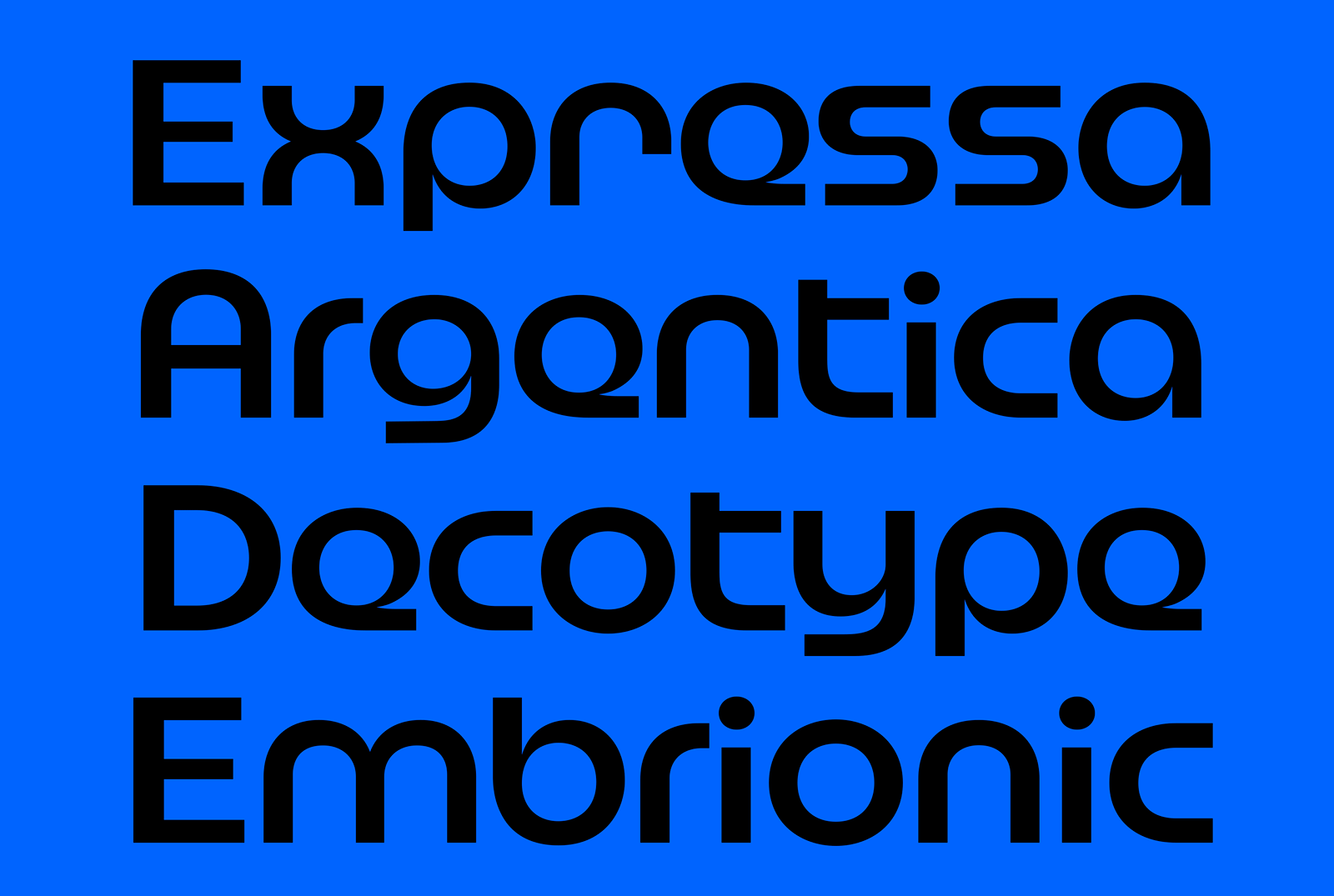
Q&A Franziska Weitgruber
We have a fabulous selection of international guests critics visiting us at TypeParis Summer23. We wanted to find out a little more about each of them, so have presented them with a series of questions which they have generously taken the time to answer. Discover Franziska Weitgruber's interview.
Biography Franziska Weitgruber is an independent Type and Graphic Designer based in South Tyrol (IT). She graduated from the Type and Media master course at the Royal Academy of Arts Den Haag (NL) in 2016. Besides her Design practice she is a lecturer in Type Design at New Design University (AT).
Her typefaces are published via futurefonts.xyz, Fontwerk and Blaze Type. Since 2020 Franziska is part of the Type Design/research duo Fantasia Type with Michele Galluzzo.
Interview
Do you prefer a permanent/dedicated workspace, separate from home or at home or do you like to keep mobile?‍
Franziska Weitgruber I have experienced many different workplace situations and have come to a conclusion that works well for me personally. Just as it seems best for our bodies not to stay in the same sitting or standing position all day, I like to change my work environment from time to time. I think it’s important to have a set space, preferably a dedicated room that’s just for work and nothing else. A height-adjustable desk is the best ergonomic solution for me, especially for design and type design work. However, depending on the task, I also like to go to a collaborative studio or outside sometimes. I travel quite a bit due to my teaching and workshop activity, so thanks in part to that, I have enough variety in my surroundings and work environment. When I come back to my studio, it also feels very good. I think it’s the variety of stimuli that the different places and environments give me. When in my studio, the possibility to physically create something else in between screen work is crucial to me. It can be cooking, baking, taking care of plants, maybe ceramics in the future.
“When it comes to type design I mostly get information from good old books.”
– Franziska Weitgruber
Do you read the news? And as part of your speciality, what are the sources of information you consult?
‍Franziska Weitgruber I listen to Italian news podcasts quite frequently and an Austrian radio channel including the news. As I’m living close to the Italian border to Austria, I benefit from obtaining sources in both languages.
When it comes to type design, I mostly get information from good old books. I enjoy research through online archives though.
What do you do to evade yourself from work? Do you practice any sports?
‍Franziska Weitgruber It’s a bit of a cliché among type designers: I do road cycling. What’s been distracting me from everything else lately is scuba diving. It’s something I’ve wanted to do for a long time, and it really is as awesome as I imagined. As I live closer to the mountains than to the sea, I enjoy exploring the rocky areas as well.
What drives you to create new typefaces?
Franziska Weitgruber There are different kinds of drives, it can be a simple desire to have a certain kind of typeface as a tool in visual communication and be able to decide on every small bit in the design. Sometimes it’s a very hard to describe fascination for certain shapes that need to be brought to live, there’s no way around it. It’s strangely emotional sometimes, I have a strong connection to certain letterforms – a phenomenon very hard to describe in words. Every type designer might have it? (This needs to me investigated.)
“Future Fonts has eased my panic of only publishing when something is perfectly finished, when is something finished anyways?”
– Franziska Weitgruber
Which advantages do you have by publishing your typefaces through Future Fonts? Would you recommend it to our future attendees and alumni?
Franziska Weitgruber Future Fonts is super. The team behind it and the community that grew from it is so inspiring and open, it just feels right and good to publish there. As a foundry you have full control over everything, from pricing to publishing rhythm. Being able to publish a preliminary version of a typeface gives you so many insights. User and designer connect at an early stage in the process of designing. Future Fonts has eased my panic of only publishing when something is perfectly finished, when is something finished anyways?
You founded Fantasia Type with Michel Galluzo in 2020. How does this duo work, who does what?
Franziska Weitgruber Fantasia Type is a playground project for Michele and I, we do projects we are fascinated about, in parallel with our individual design and didactic practice. We are both designers and instructors, Michele in addition is a design historian and researcher – I’m a type designer and more on the applied side of things.
The process is usually very fluid, especially when starting a project. Later in the process, we do split things into more dedicated tasks. Michele is very skilled in collecting references, understanding historical connections, formulating ideas, concepts, design directions which we discuss and try to bring forward. I’m trying to filter our sketches and transform and develop them further.
“I couldn’t stop drawing type after work and I understood what that meant. It was and is definitely the thing I enjoy doing the most.”
– Franziska Weitgruber
Do you remember when you decided to pursue your career in design? What made you choose this?
Franziska Weitgruber I didn’t really know Type Design was a profession until I studied Graphic Design. There was a strong focus on type design in my bachelor course – I was fascinated straight away. Friends would tell the very cheesy story that they had always known letterforms would become my profession, remembering me drawing the shadows of pointed pen style headlines in primary school with an absurd dedication.